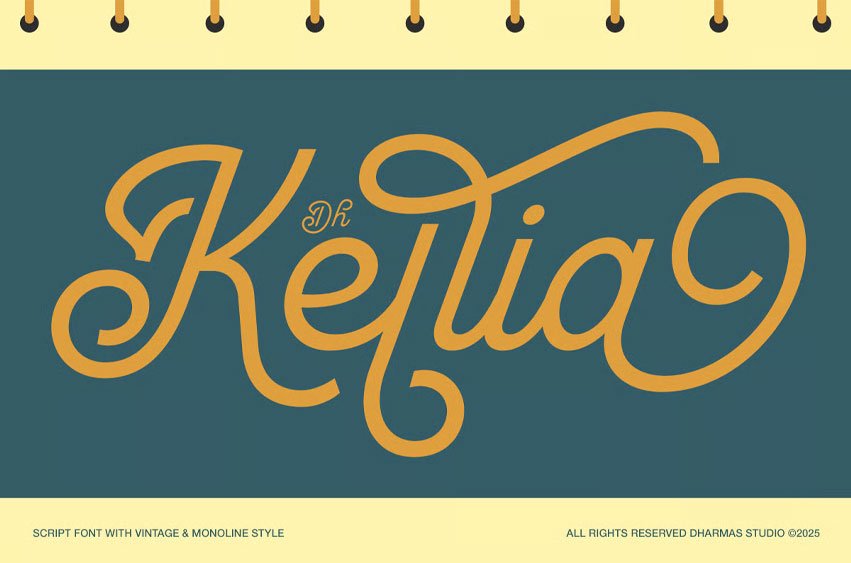
Dh Kellia Font is a charming vintage script font family inspired by the nostalgic spirit of the Wild West and retro hand-lettering styles. It blends playful curves with balanced, regular strokes, creating a warm, friendly, and highly versatile personality that’s perfect for retro branding, packaging, café logos, vintage posters, and creative social media designs. This medium-weight is legible and impactful, making it your ideal typeface for memorable brand identity.
Equipped with 125+ alternates and ligatures, Kellia Regular allows for endless creativity in lettering compositions, making every word look uniquely handcrafted and full of character.
Complete with uppercase, lowercase, numerals, punctuation, and multilingual support, Kellia Regular is your go-to font for vintage-inspired designs with a touch of modern flair and reliable, classic appeal.
Kellia Regular Font Features:
- 125+ Alternates and Ligatures
- Letters, numbers, symbols, punctuation, special alternates